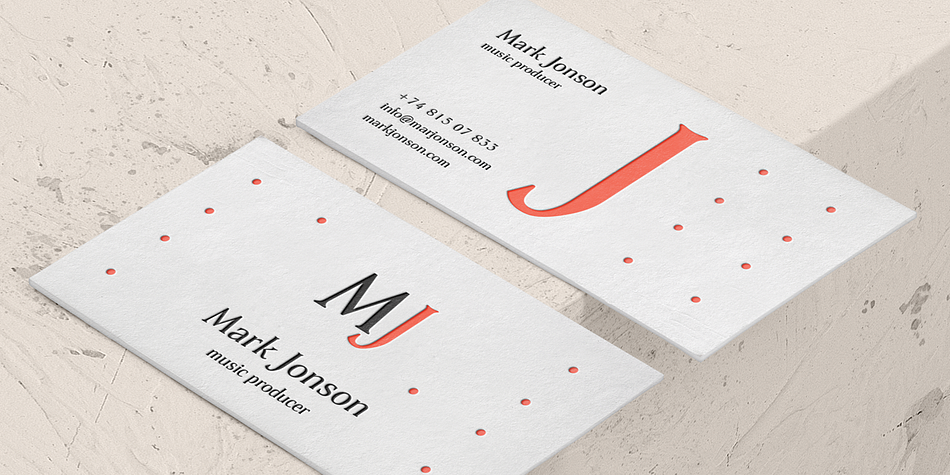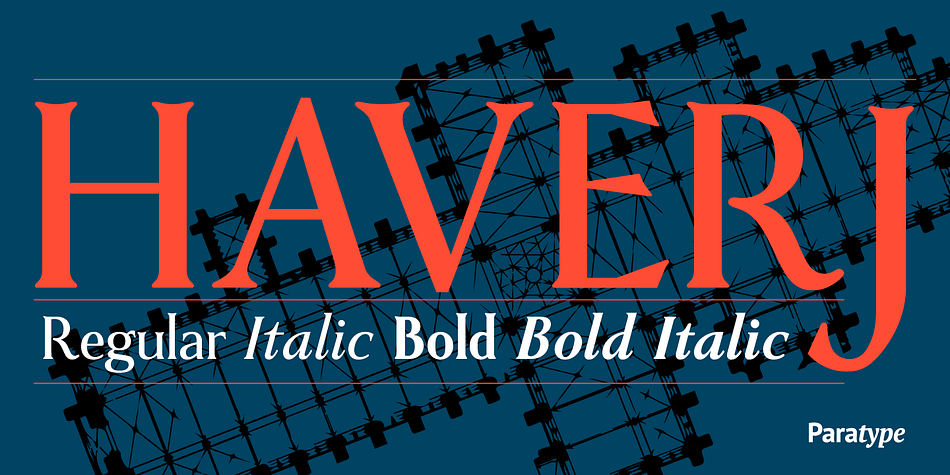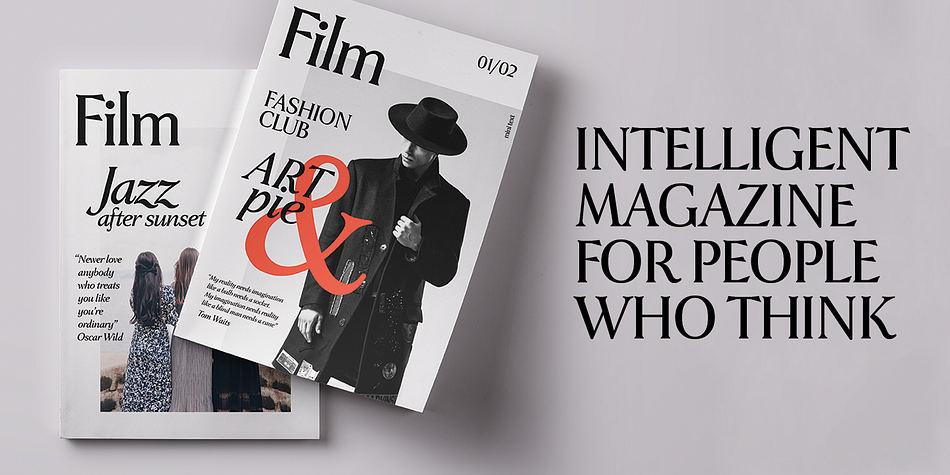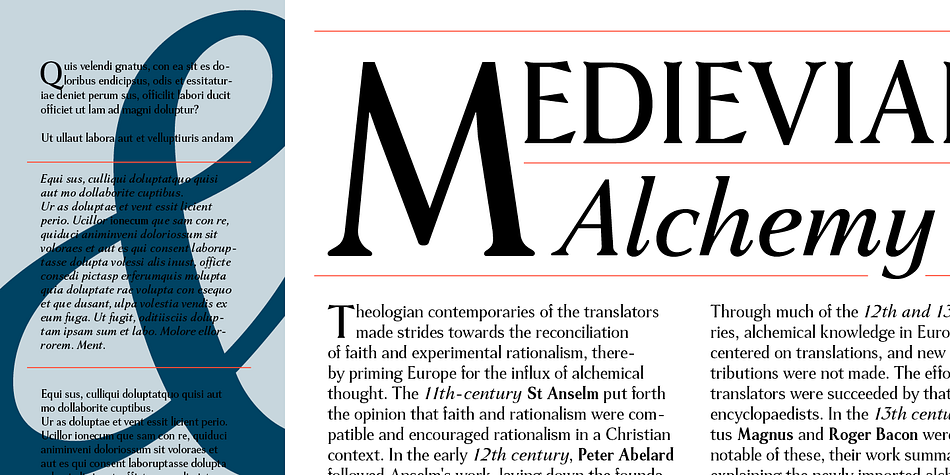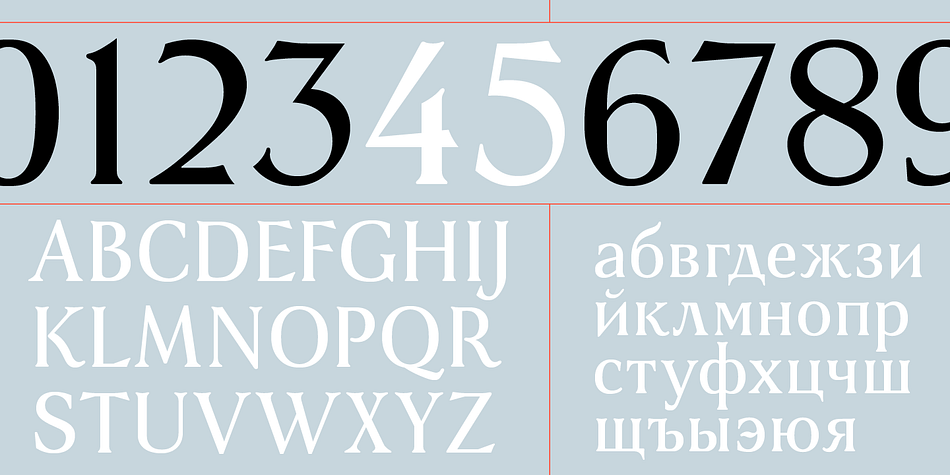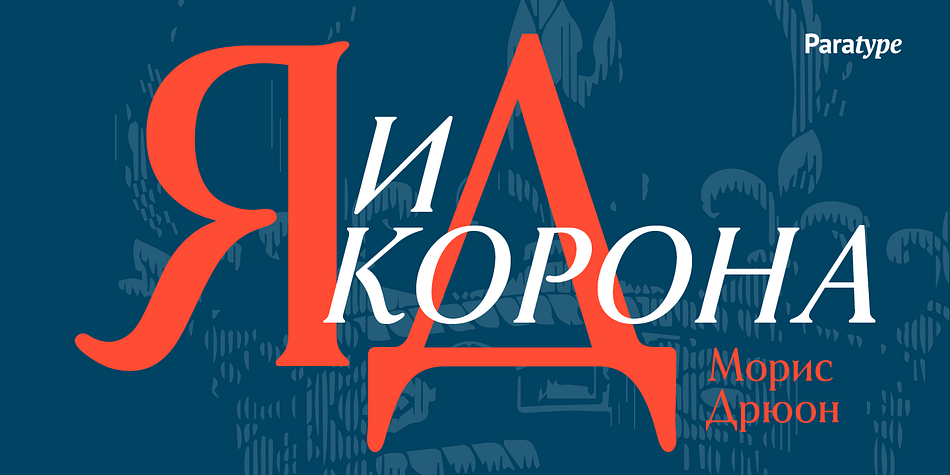
Designed by Manvel Shmavonyan, Haverj is a serif font family. This typeface has four styles and was published by ParaType.
An original typeface designed for ParaType in 2004 by Armenian designer Manvel Shmavonyan. Based on the lettering created in 1970s by outstanding Armenian type designer Henrik Mnatsakanyan (1923—2001) of the same name. In Armenian ‘Haverj’ means ‘Eternally’. The face resembles many regular text serif fonts but elements like serifs and terminals make it eccentric and a little bit funny. The shape of diagonal legs in capital K and R resembles book lettering of the 1950s—60s. Using it in text, advertising and display typography may lead to surprising effects.